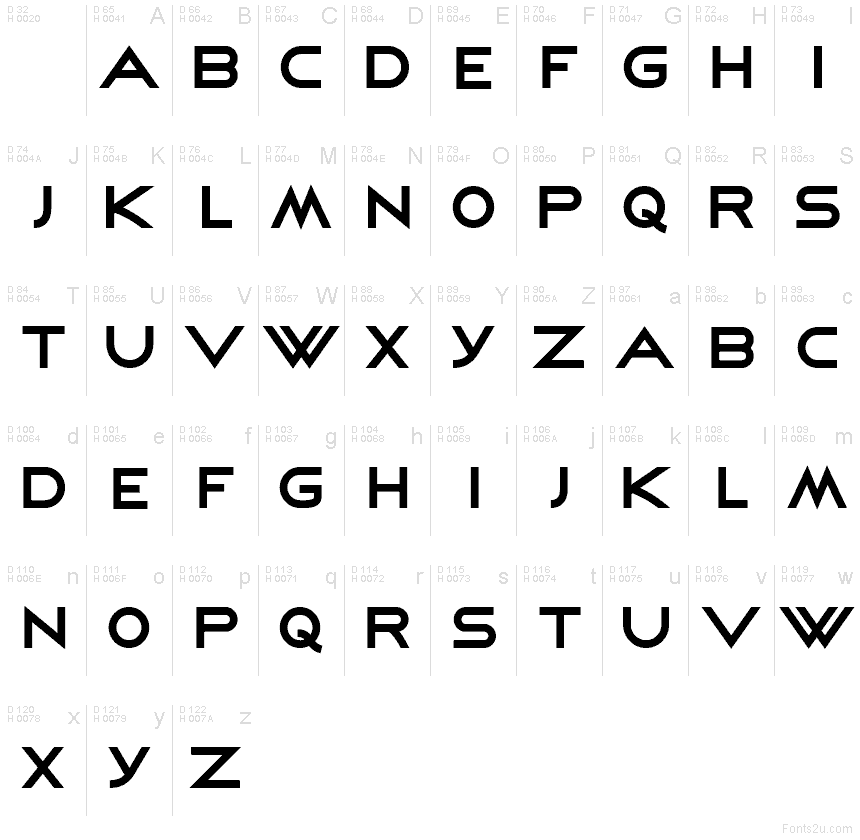
Cityworm Bold
Cityworm Bold font by Vladimir Nikolic is a free sans serif font. Built in the Cityworm family’s crisp geometry, it stands out with razor-cut diagonals, a zigzag spine on the W and M, and a punchy, circular O that locks the rhythm. Strokes are even and dense, creating a staccato, neon-sign feel that reads fast and hits hard at headline sizes.
Using Cityworm Bold, you get a futuristic snap that shines on tech branding, esports logos, sci‑fi posters, nightclub flyers, event signage, and loud YouTube thumbnails. Tight spacing and those bevel‑like terminals give compact lines real impact. For balance, pair this free font’s headlines with a light, neutral sans serif for body copy, and keep tracking modest to preserve its angular cadence.